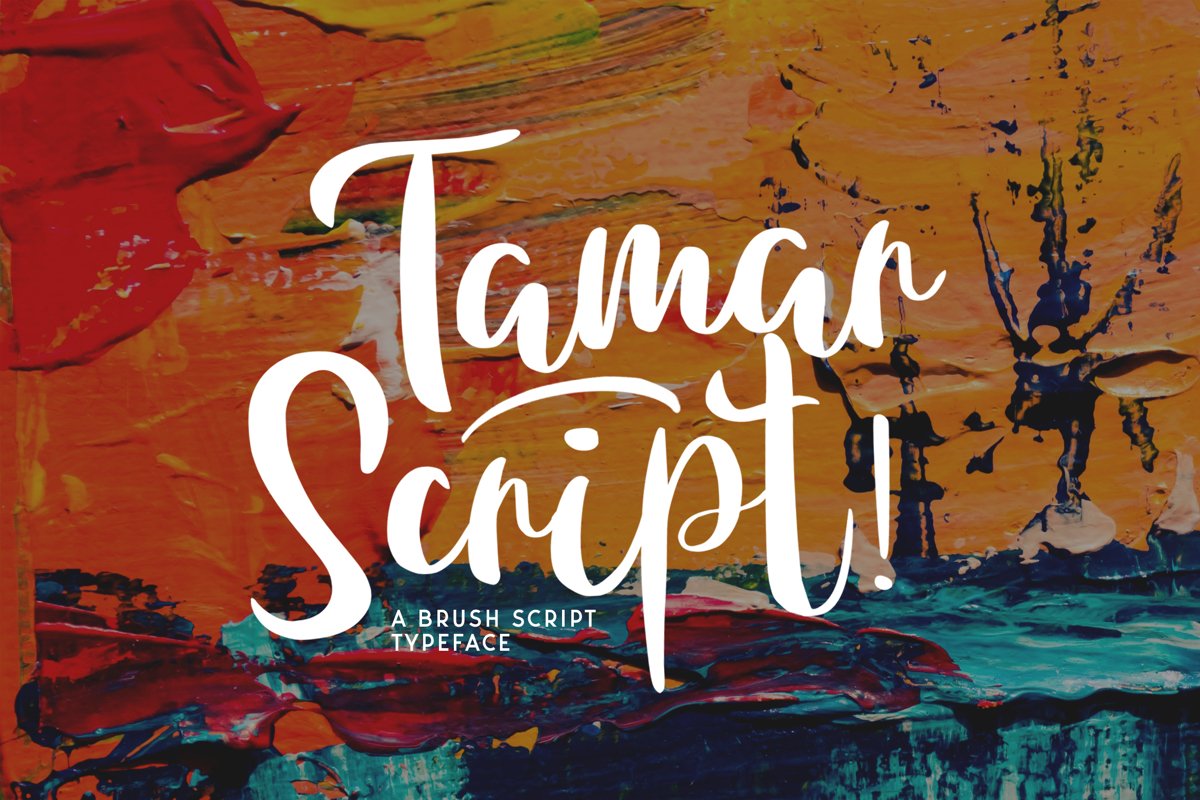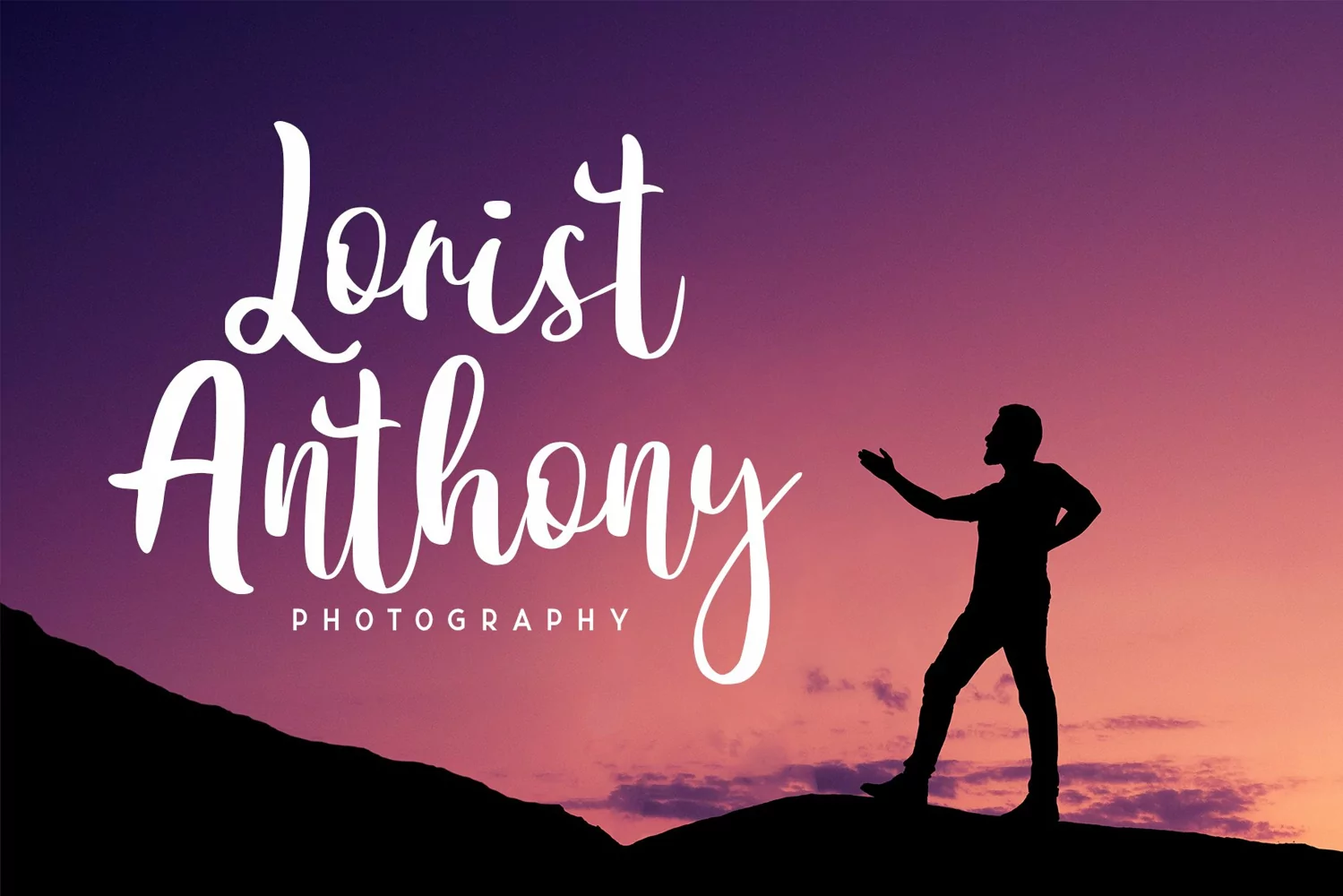
Tamar is a brush script typeface. Perfect for display, quotes, poster, branding, business card, logo, logotype, print, t-shirt, pin, mug, packaging, merchandise, headline, header and many more.